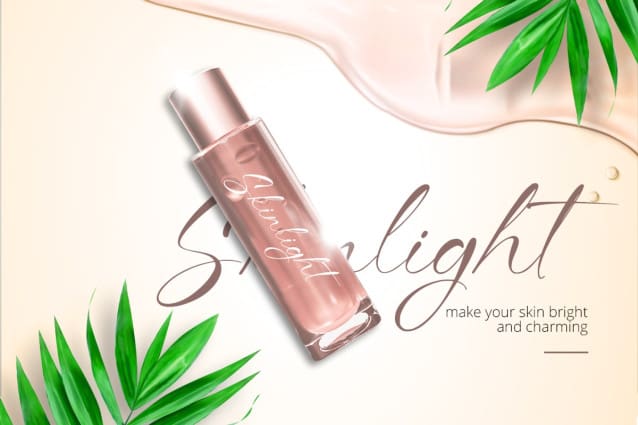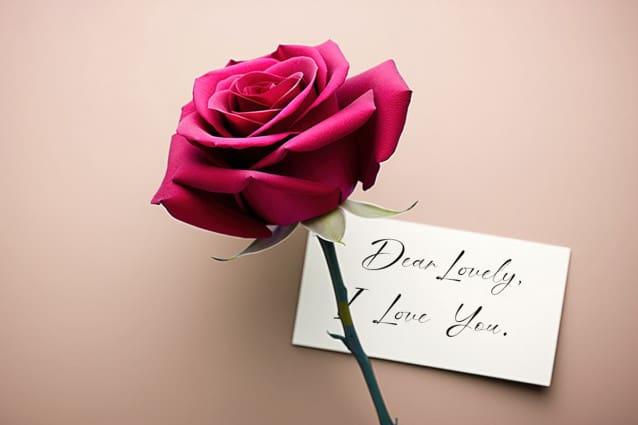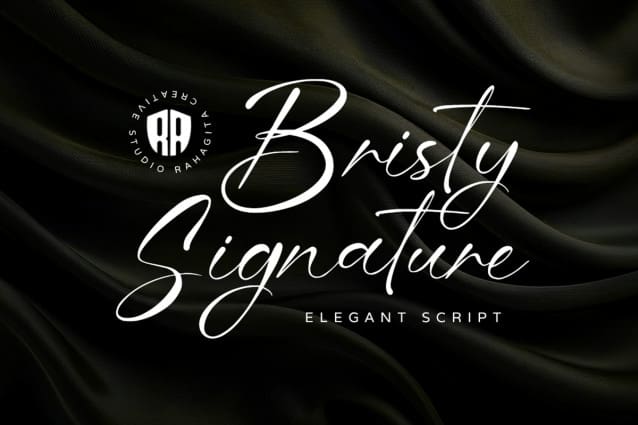
Bristy Signature Font
Bristy Signature Font is an elegant and sophisticated script font, perfect for adding a touch of class to any project. With its graceful curves and refined strokes, Bristy Signature is ideal for book titles, logos, flyers, branding, banners, crafting, business cards, social media ads, posters, and invitations. This versatile font brings a sense of luxury and timeless beauty to your designs, making it a perfect choice for anyone looking to elevate their creative work with a touch of elegance and style. Whether for print or digital, BristySignature adds a polished and professional finish to every project.